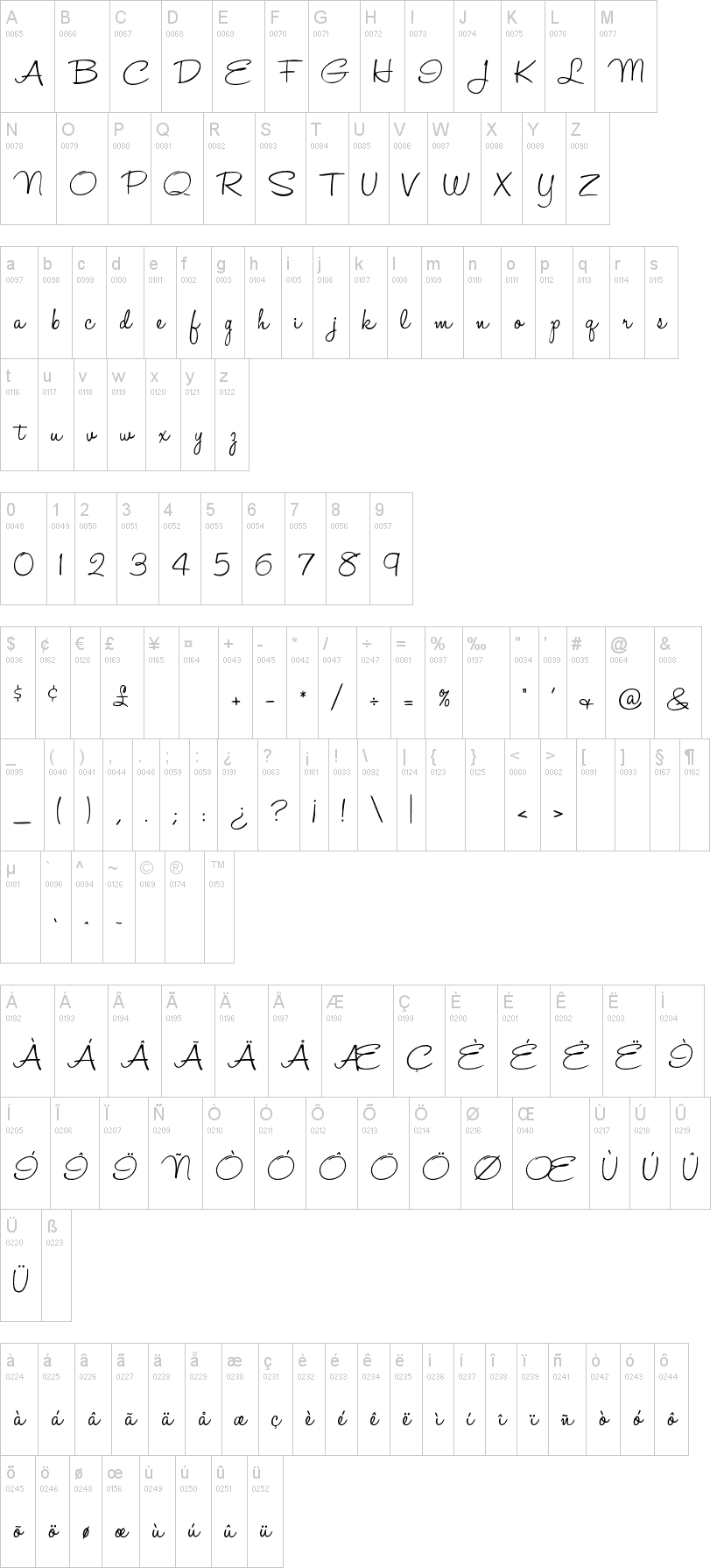
Шрифт Halo Handletter
Traced from the Dover book: Brushstroke and Free-Style Alphabets-100 Complete Fonts. After all these years it is finally in OTF format solving kerning problems. This font is free for non-commercial use and donationware for commercial use. Make a donation through PayPal my account there is: